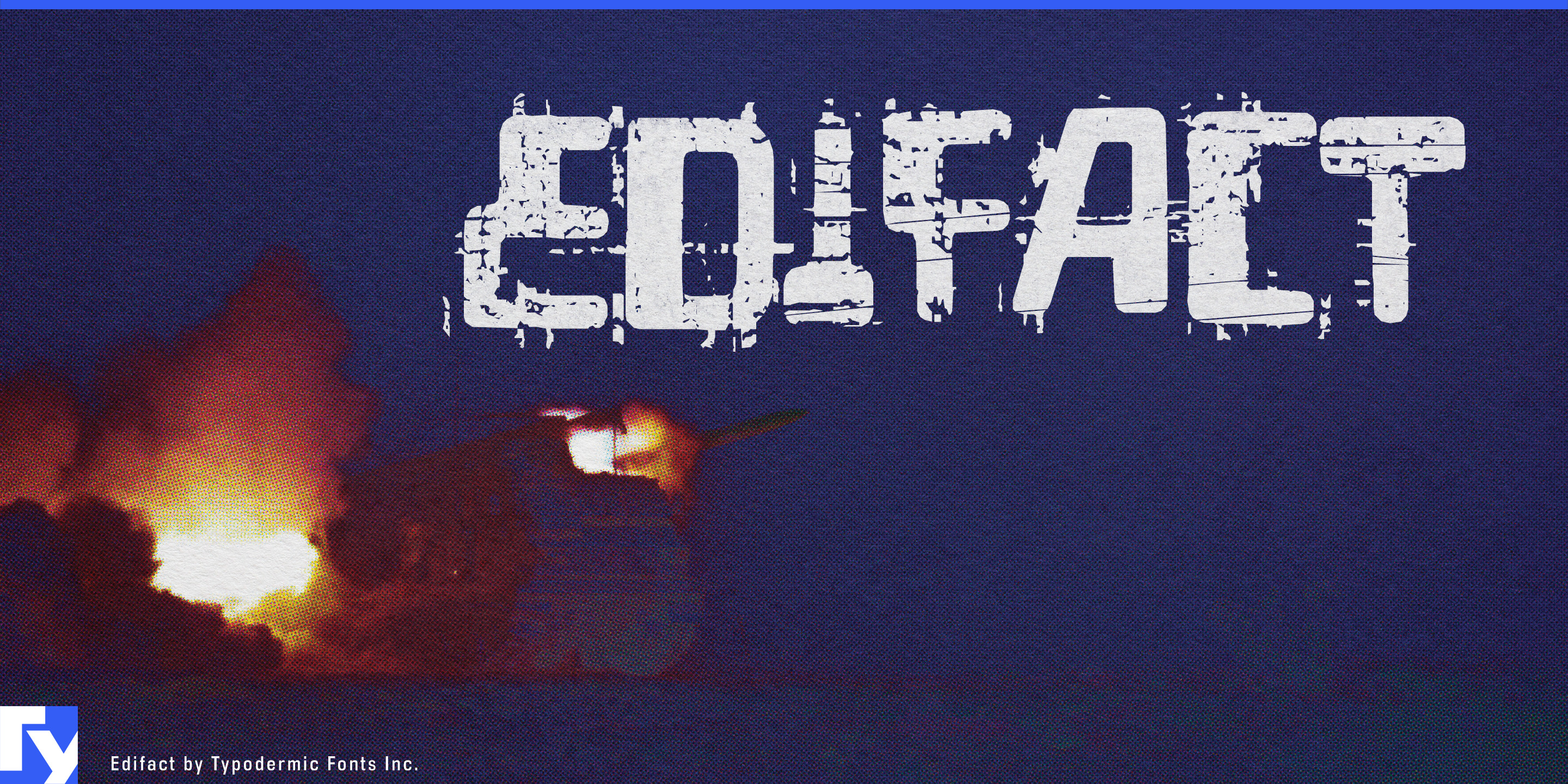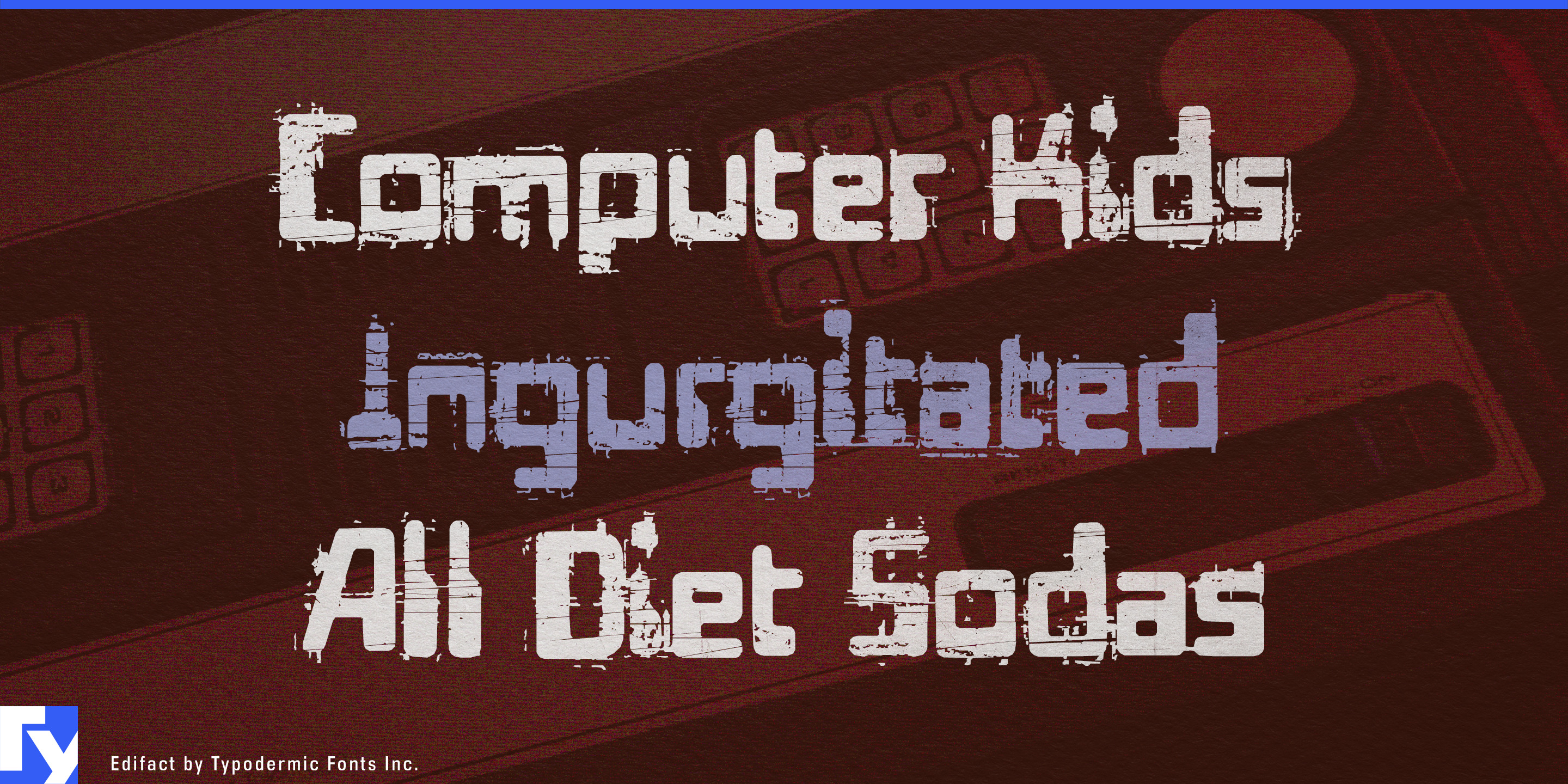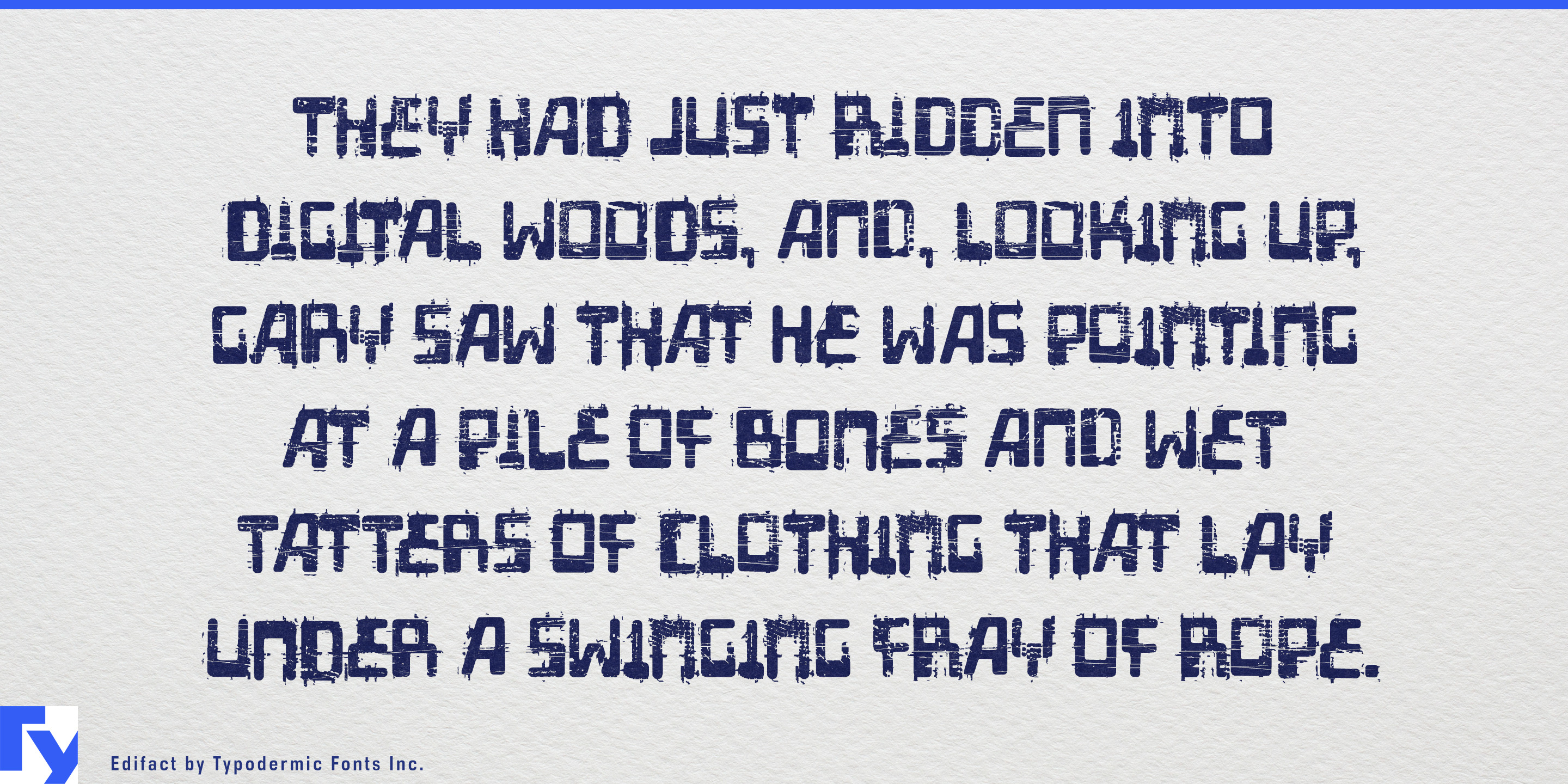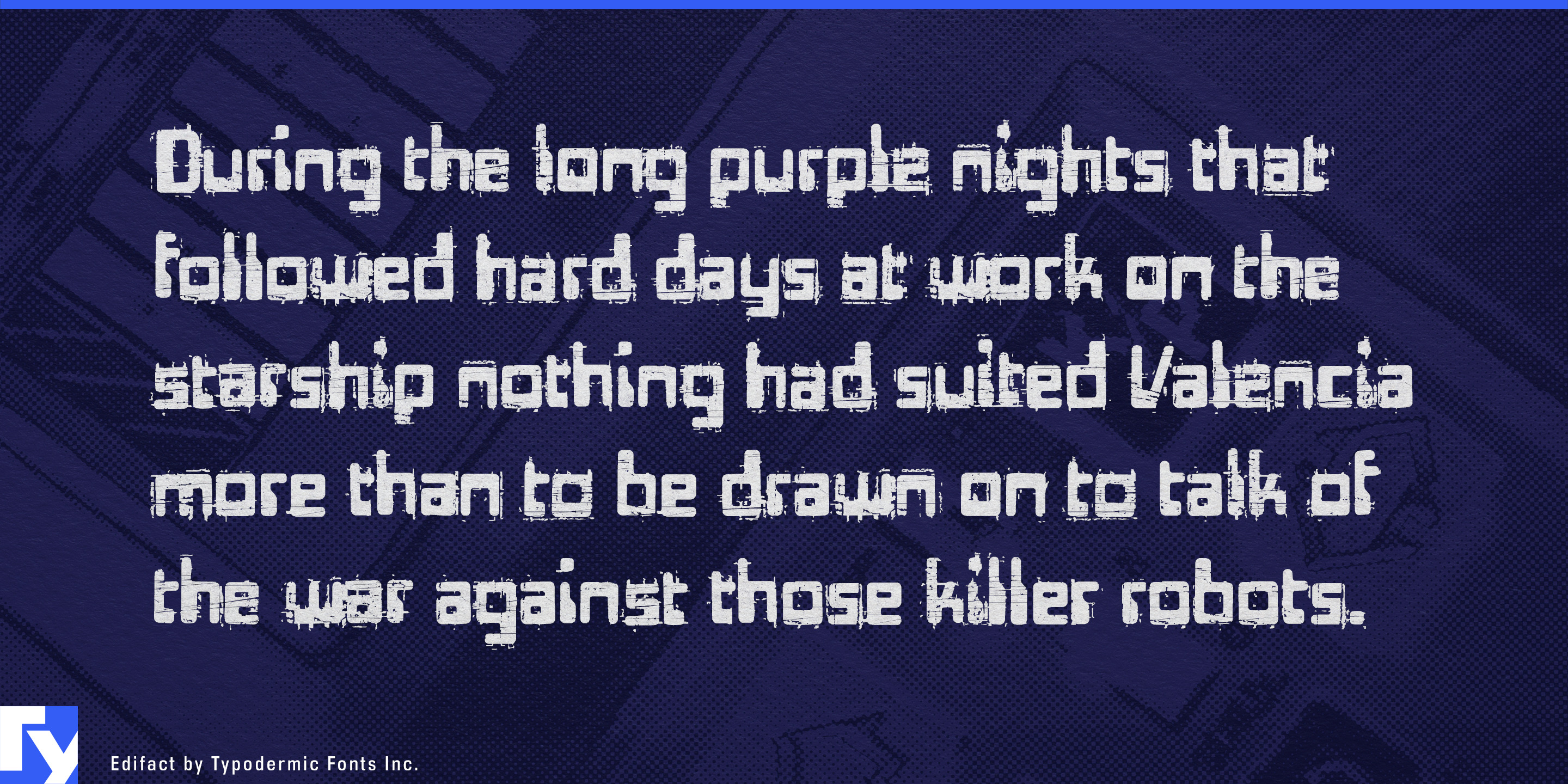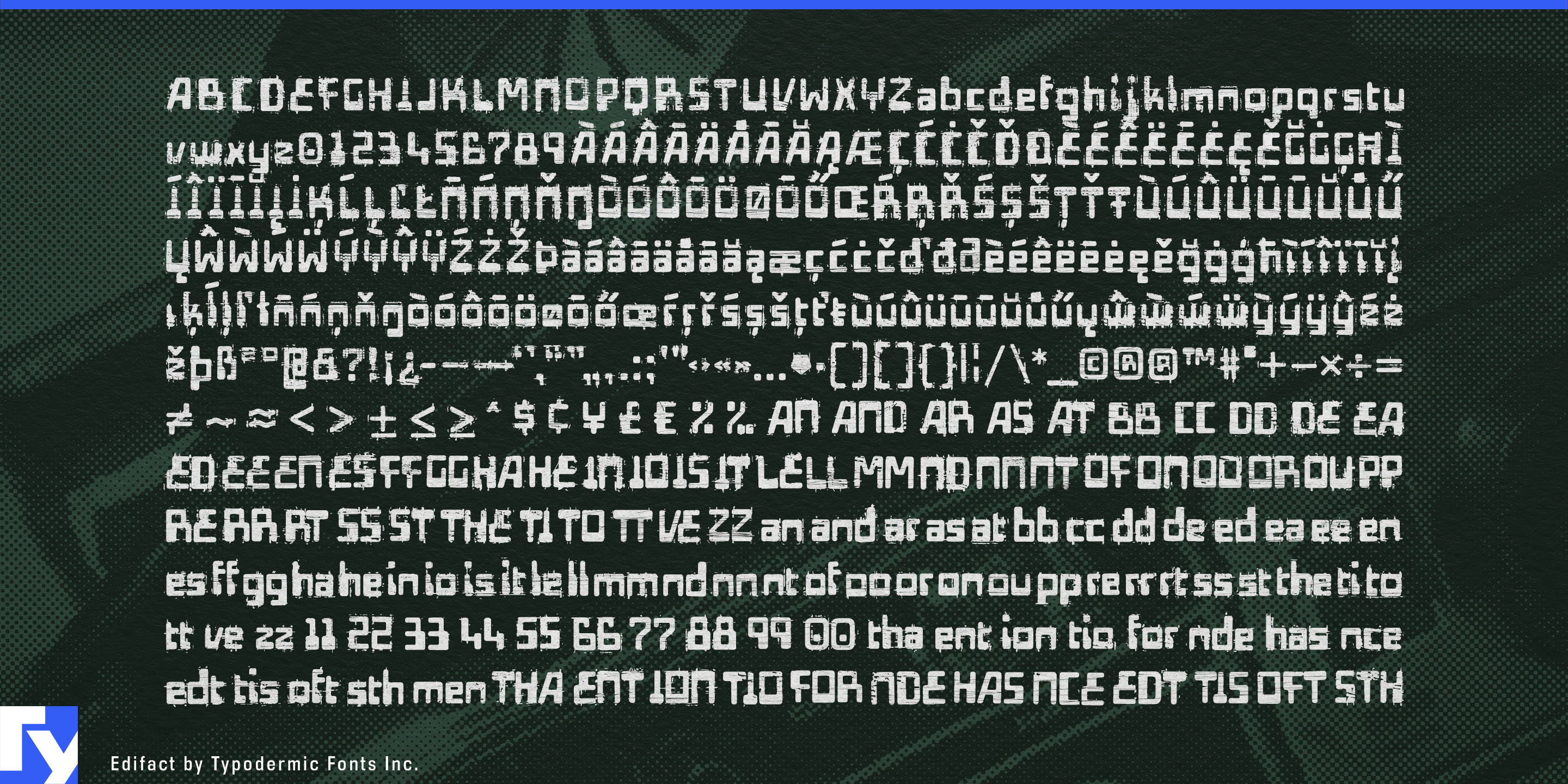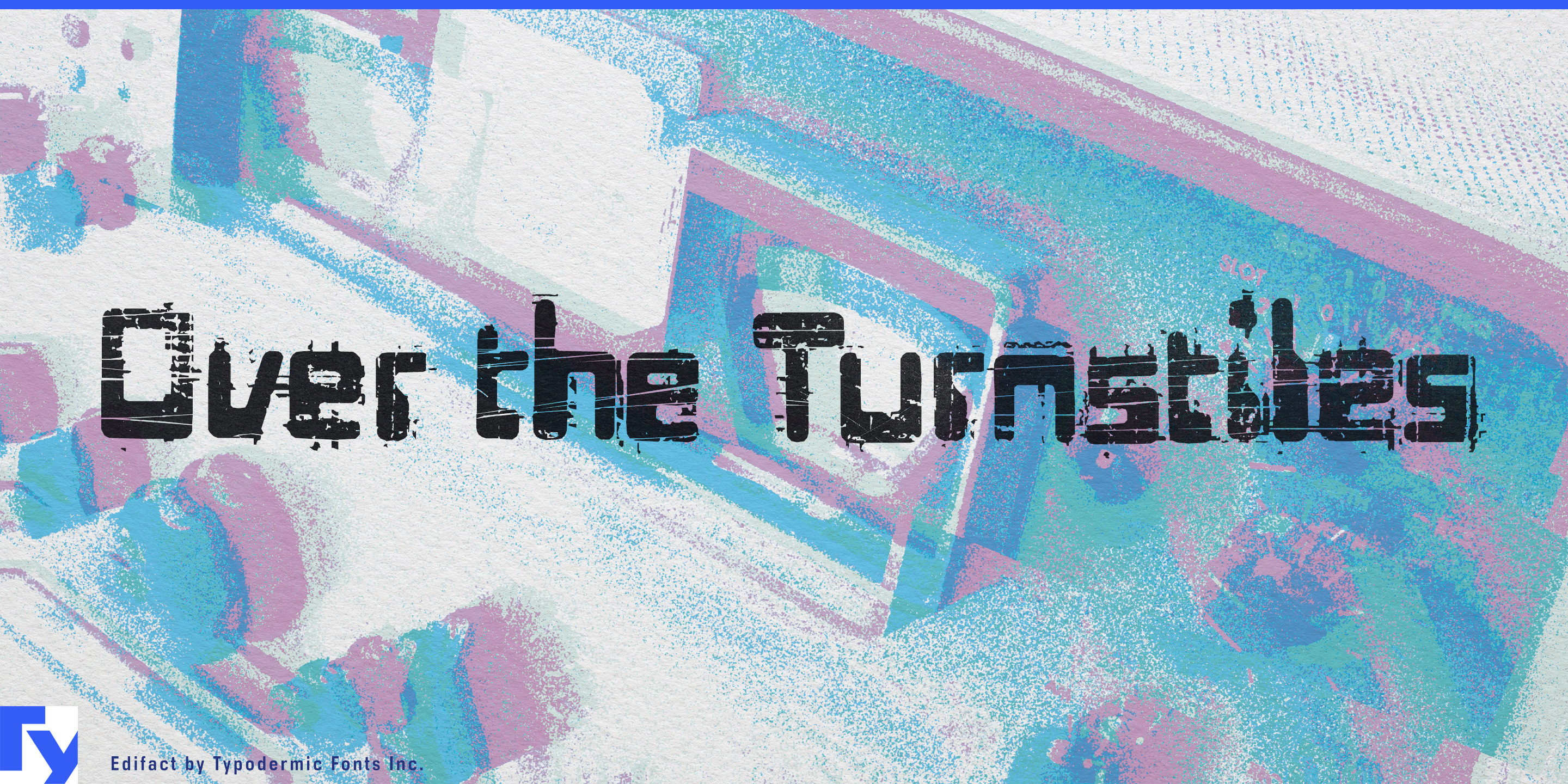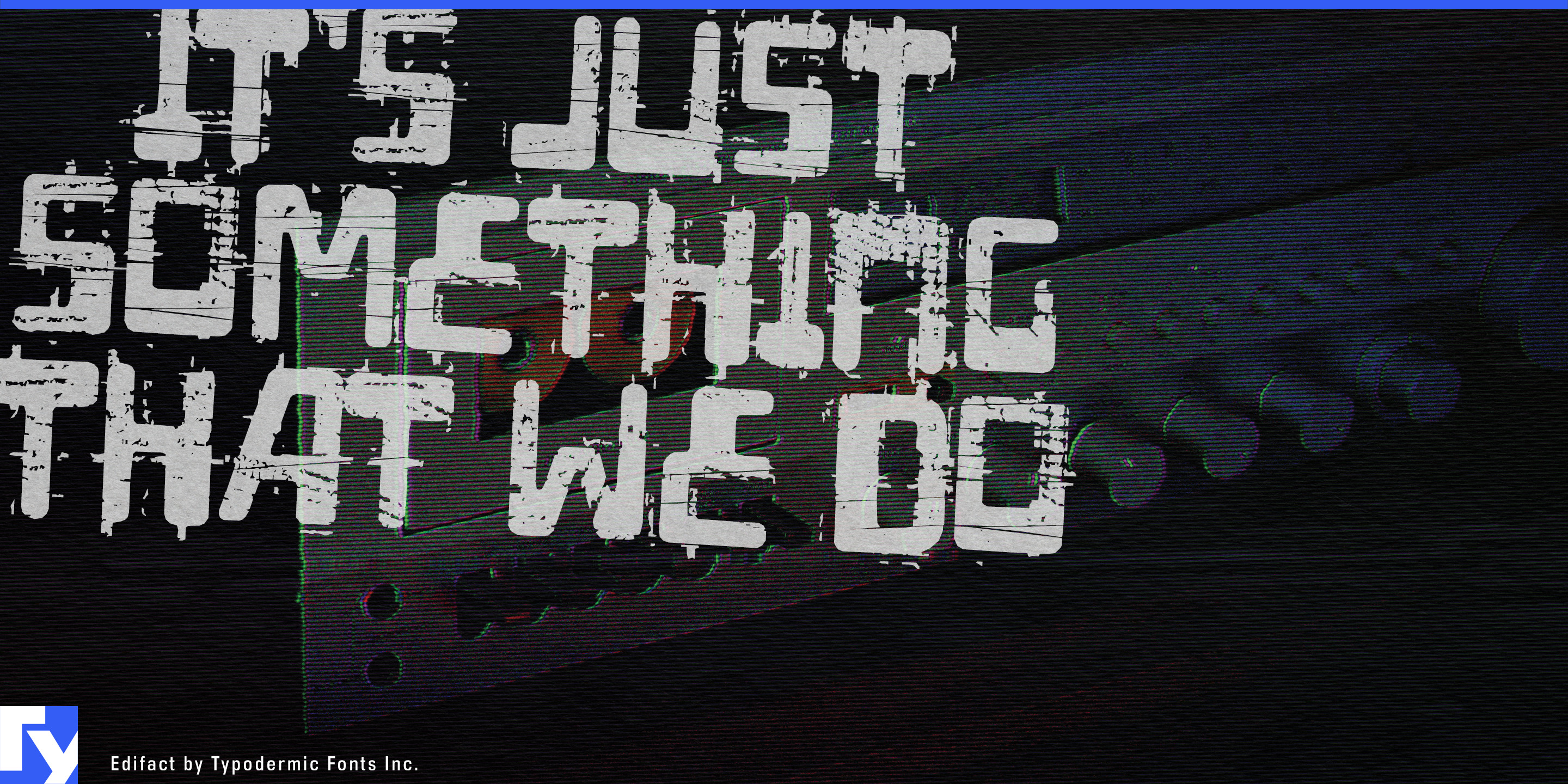
Edifact
Edifact is engineered decay—letterforms born in the age of magnetic ink and computer mainframes, then dragged through decades of ruin. Its shapes still carry the clean precision of their 1960s origins, but the surface tells another story: scorched grids, fractured edges, and mechanical scars that speak of collapsed cities and obsolete tech.
This is distressed typography with intent. Every scratch is mapped, every fracture guided, giving Edifact a distinct, technological texture that sets it apart from random grunge. Automatic ligatures allow you to customize the damage, creating authentic, varied distress that adapts to the mood of your project—whether it’s the chaos of an arcade meltdown or the quiet dread of a lost transmission.
Edifact thrives in dystopian film titles, synthwave album covers, speculative fiction jackets, industrial branding, and any design that needs to look like it survived the end of the world. Its character set spans Western, Central, and Eastern European languages, so the voice of ruin can be heard across continents.
Design in ruins—Edifact will make sure your message is the last thing standing.